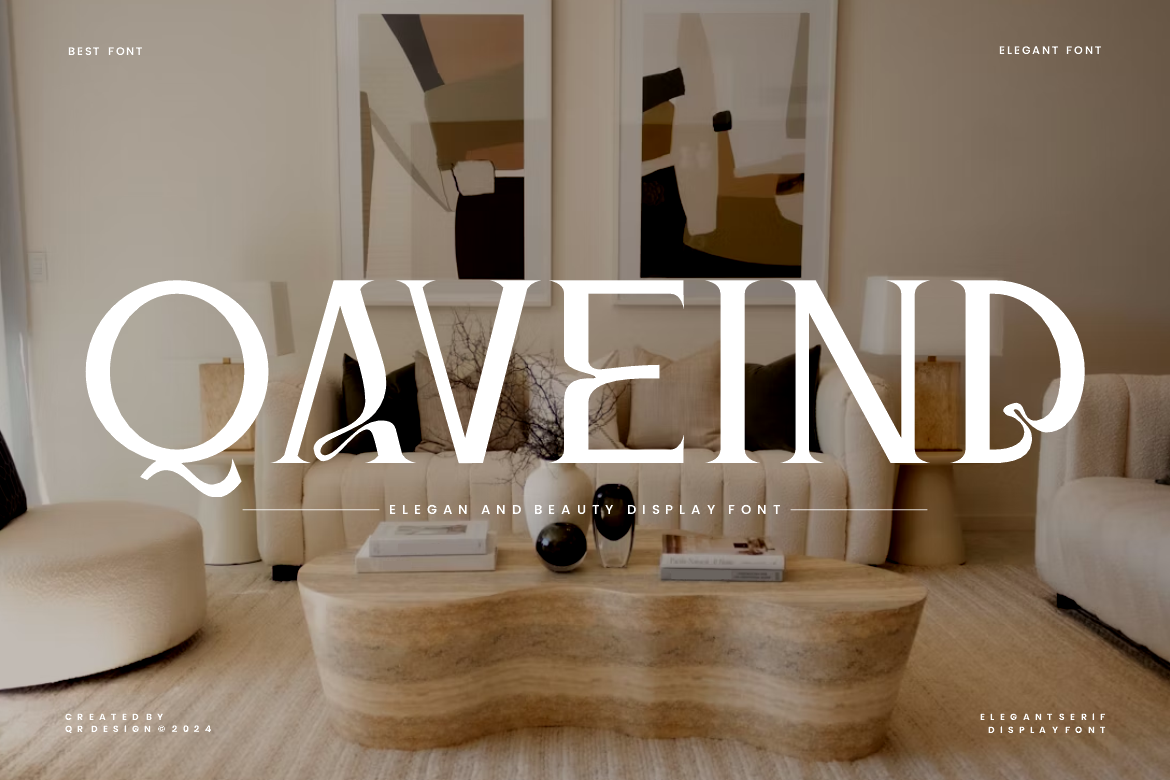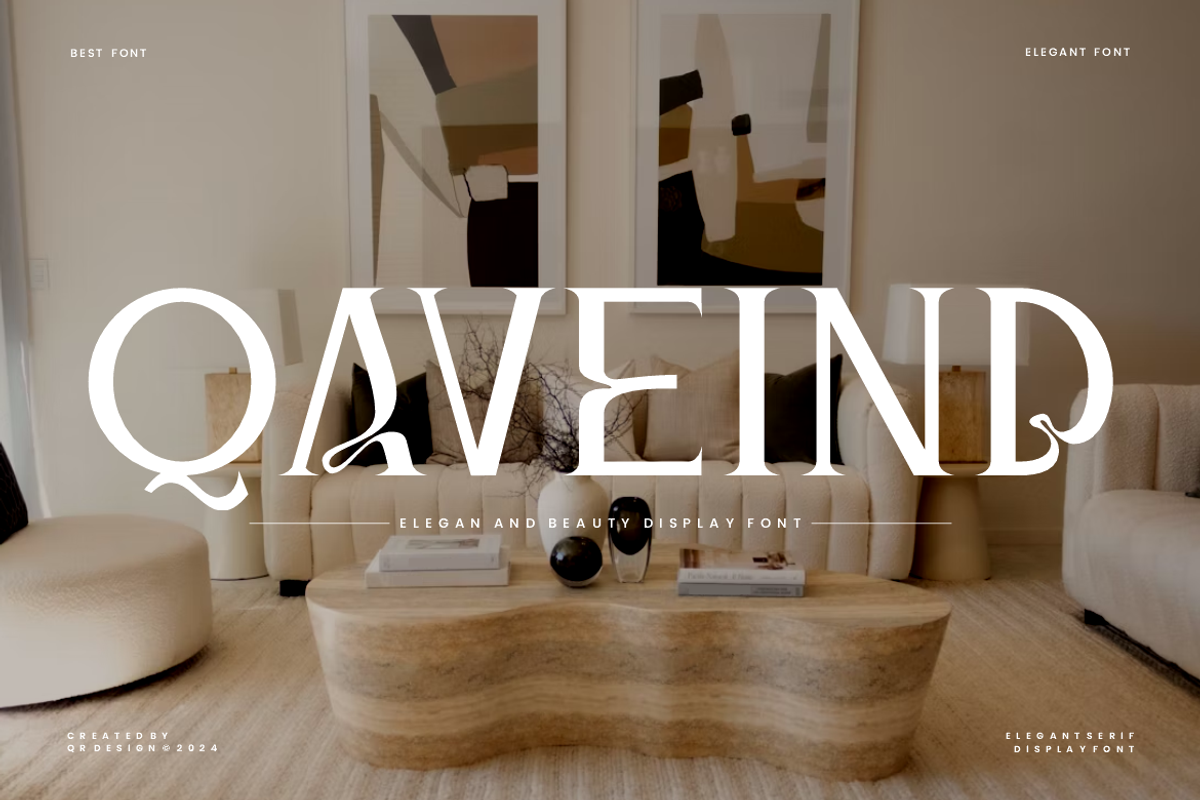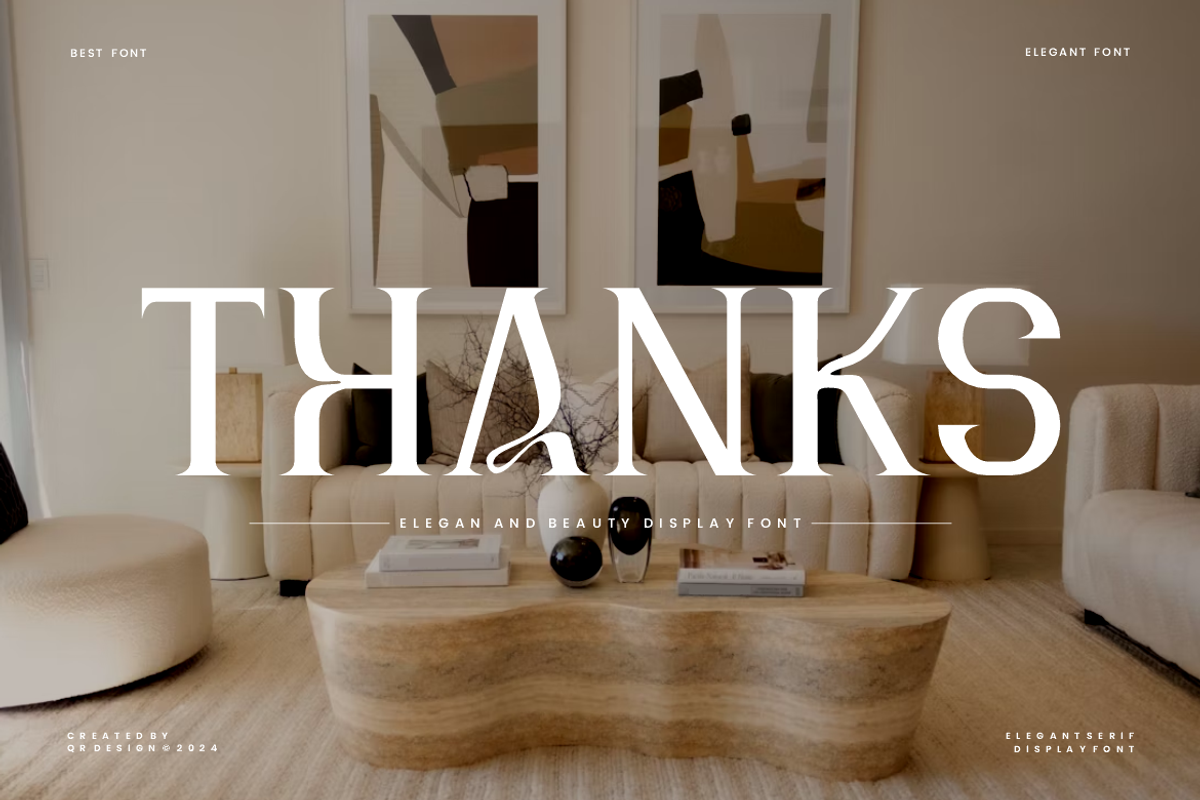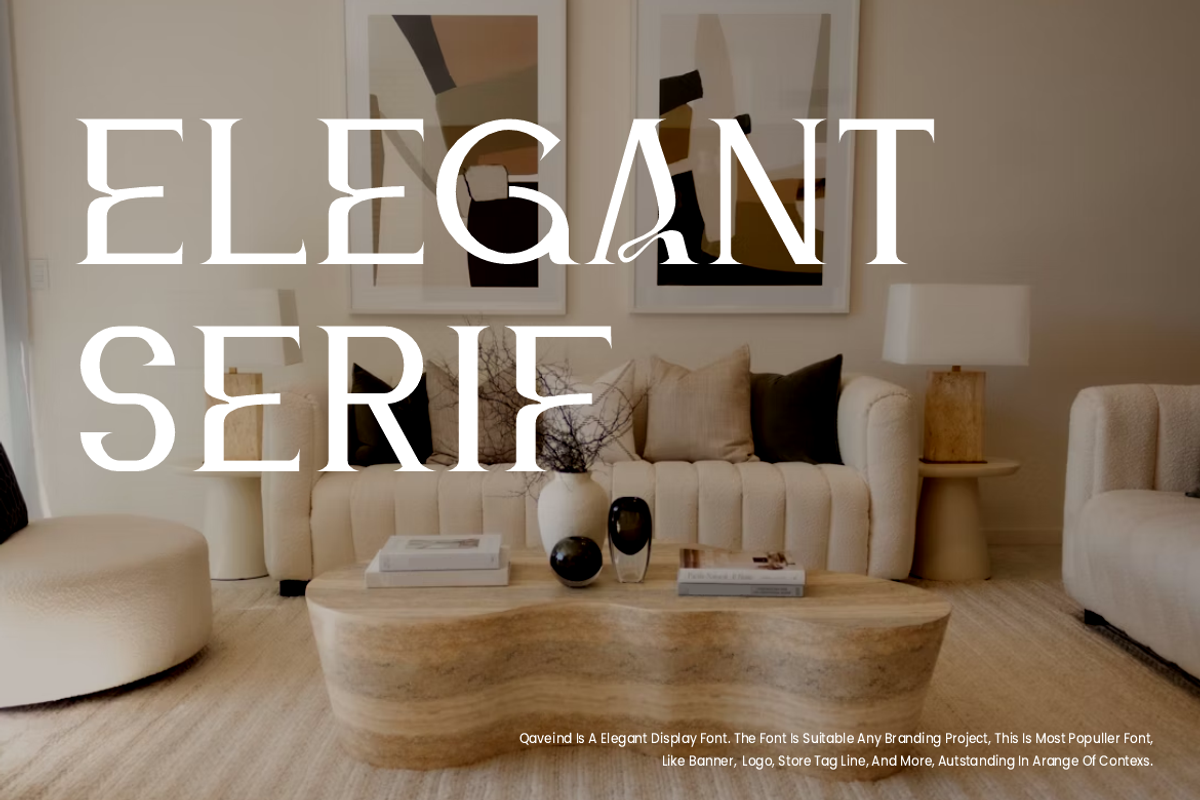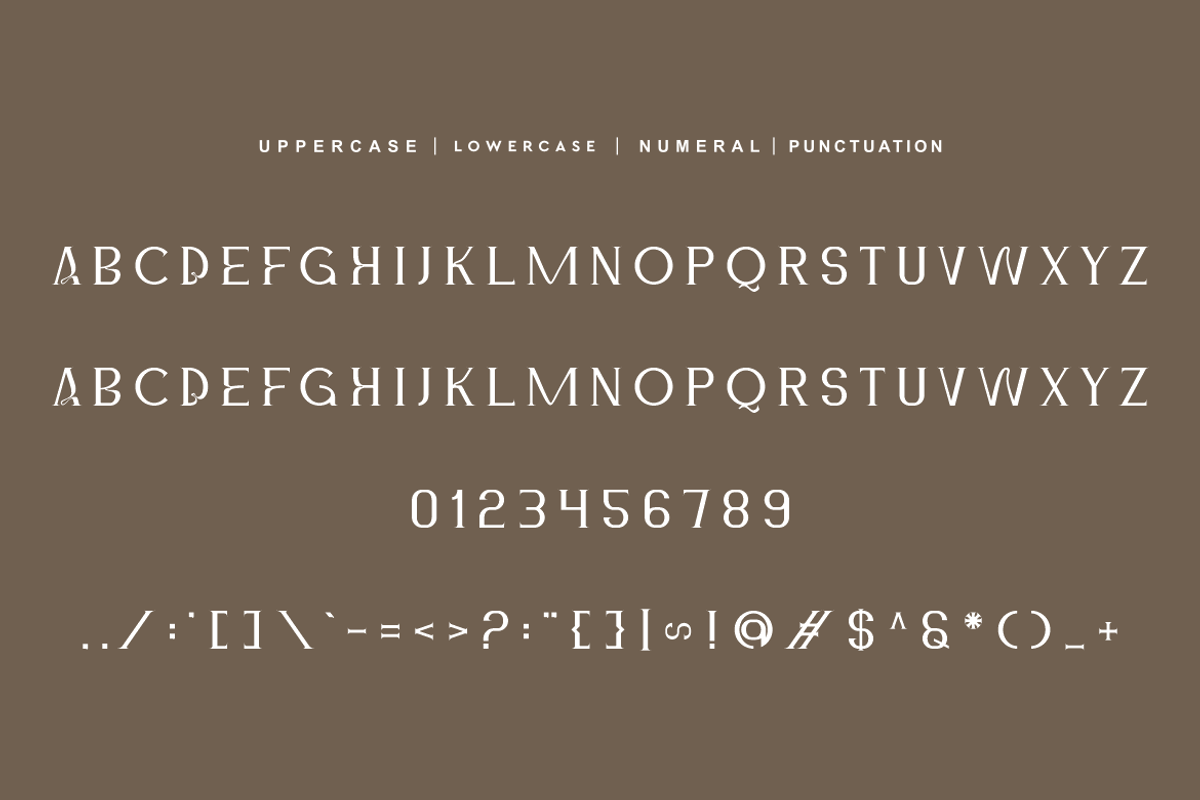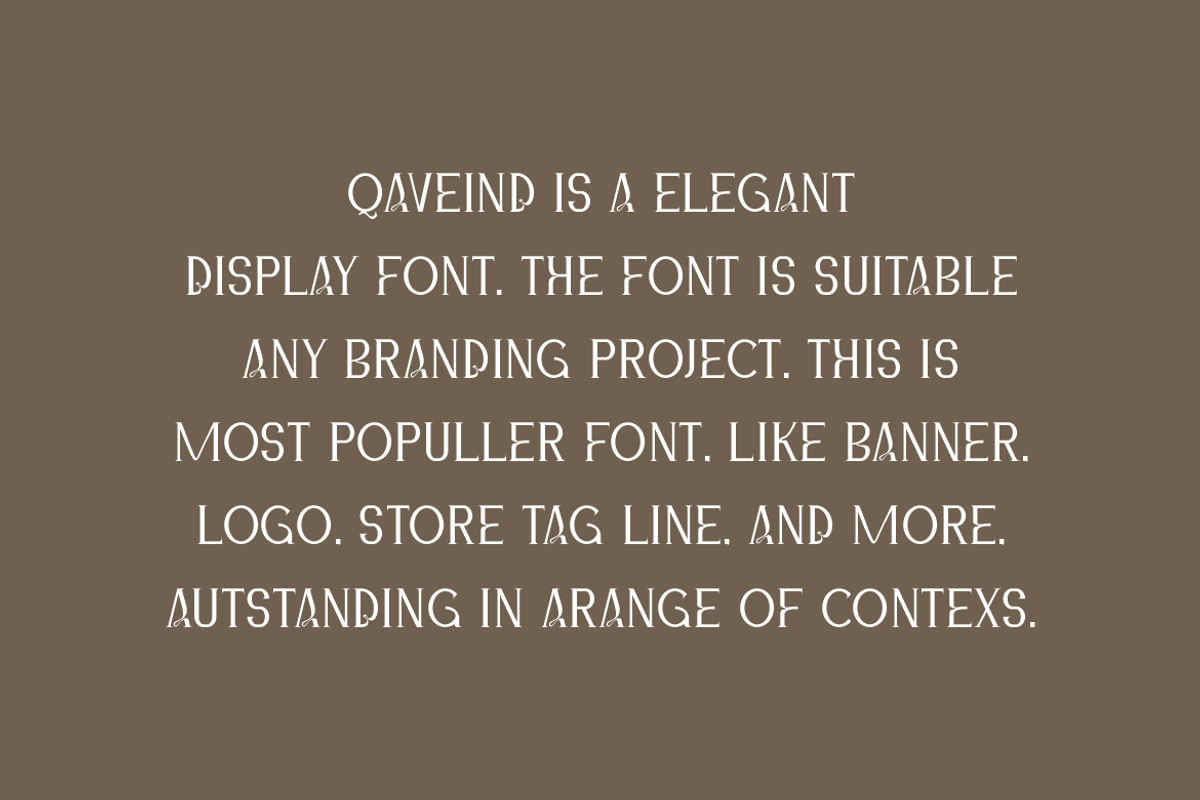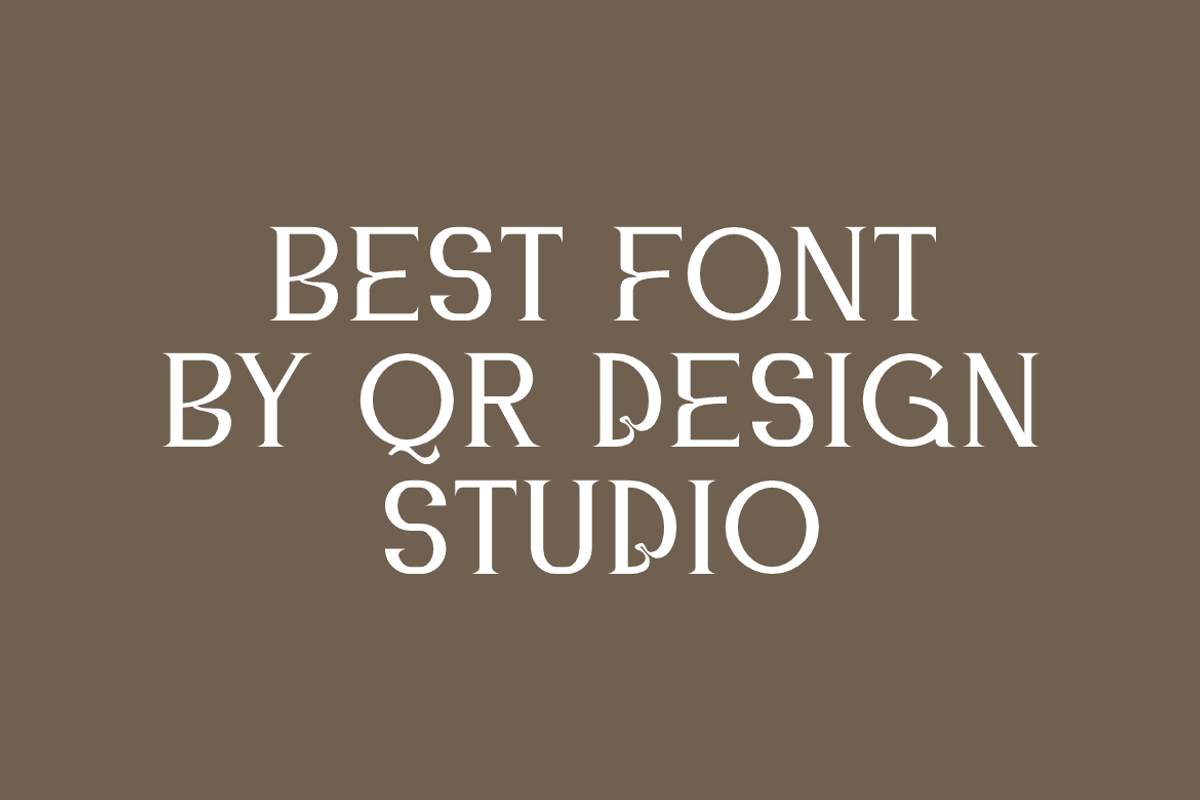
Qaveind - Elegant Serif Font
Qaveind Font is a serif and authentic display font. The font is suitable for any branding project like poster, logo, and many more. Outstanding in a wide range of contexts.